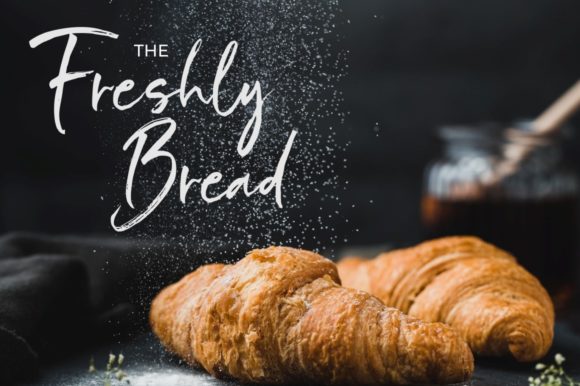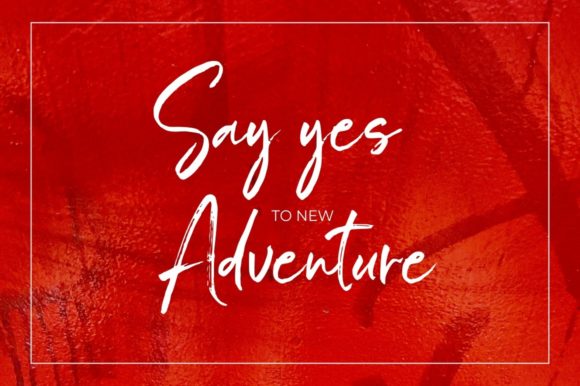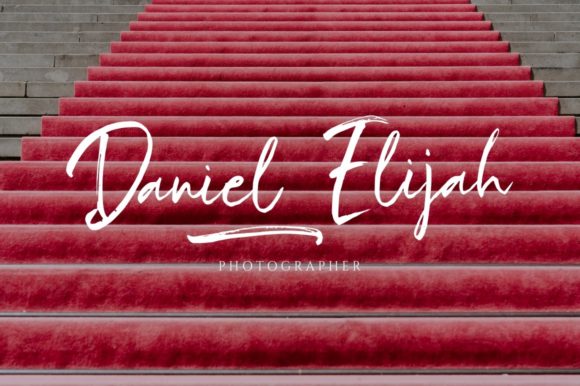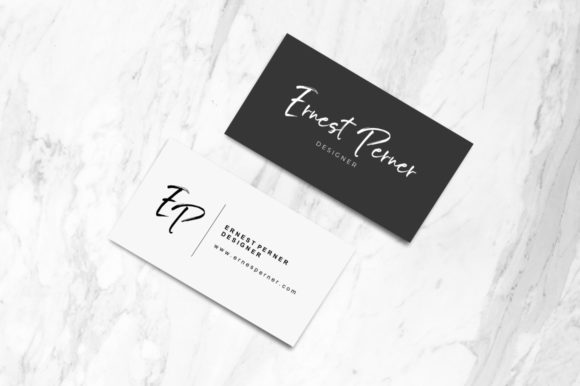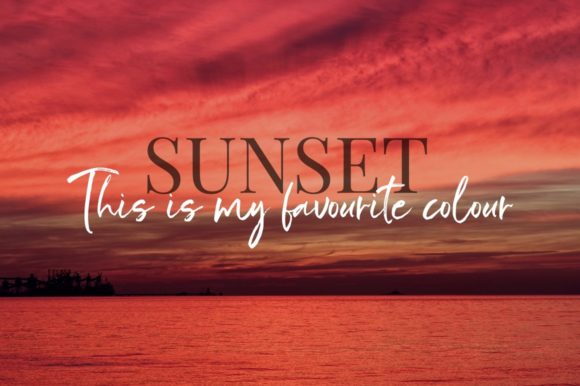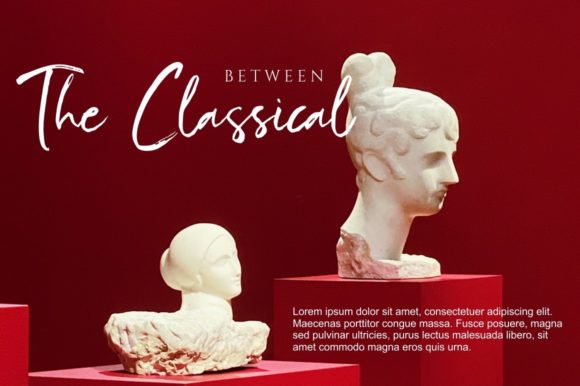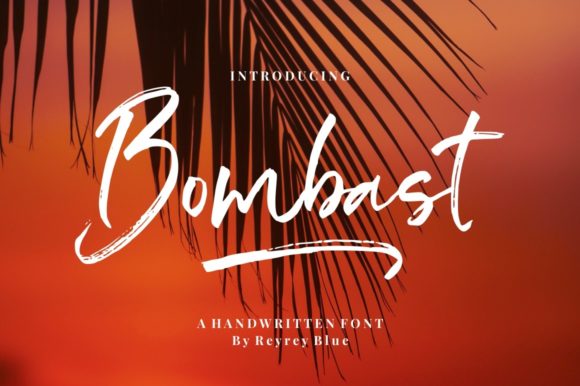
Bombast Font: Elevate Your Designs with a Flowing and Adaptable Brushed Script
In the world of typography, fonts play a crucial role in conveying the tone and aesthetic of a design. For designers and crafters looking to add a touch of trendiness and sophistication to their work, the Bombast Font is an excellent choice. This beautifully crafted brushed script font is designed to bring a fresh and modern look to various design projects.
What is Bombast Font?
Bombast Font is a flowing and adaptable brushed script font that exudes trendiness. Its unique and elegant design makes it perfect for a wide range of applications, from branding and advertising to packaging and digital media. The font’s flowing strokes and carefully crafted letterforms create a sense of movement and fluidity, adding a dynamic touch to any design.
Key Features of Bombast Font
- Flowing and Adaptable: Bombast Font is designed to be versatile and adaptable, making it suitable for various design projects and applications.
- Brushed Script Style: The font features a beautiful brushed script style that adds a touch of elegance and sophistication to any design.
- Trendiness: Bombast Font is particularly crafted to meet the demands of modern design, making it perfect for designers looking to create trendy and stylish work.
- Beautiful and Refreshing: The font’s unique design and flowing strokes create a beautiful and refreshing look that is sure to capture the attention of audiences.
Who Can Benefit from Bombast Font?
Bombast Font is an excellent choice for a wide range of designers and crafters, including:
- Graphic Designers: Graphic designers can use Bombast Font to create stunning branding and advertising materials, such as logos, brochures, and posters.
- Digital Designers: Digital designers can use the font to create engaging and modern digital media, such as website headers, social media graphics, and mobile app interfaces.
- Crafters: Crafters can use Bombast Font to add a personal touch to their handmade projects, such as handmade cards, gift tags, and iron-on designs.
- Marketing and Advertising Professionals: Marketing and advertising professionals can use the font to create eye-catching and effective marketing materials, such as billboards, flyers, and email campaigns.
Tips for Using Bombast Font Effectively
To get the most out of Bombast Font, here are some tips to keep in mind:
- Pair with Simple Fonts: Pair Bombast Font with simple and clean fonts to create a striking contrast and add visual interest to your design.
- Use for Headings and Titles: Use Bombast Font for headings and titles to create a bold and eye-catching look that grabs the attention of audiences.
- Experiment with Colors: Experiment with different colors and gradients to add depth and dimension to your design and make Bombast Font stand out.
- Keep it Simple: Keep your design simple and uncluttered to allow Bombast Font to shine and take center stage.
| Font Name | Bombast Font |
| Author | Reyrey Blue |
In conclusion, Bombast Font is a beautiful and versatile brushed script font that is perfect for designers and crafters looking to add a touch of trendiness and sophistication to their work. With its flowing strokes, adaptable design, and elegant letterforms, Bombast Font is sure to elevate your designs and make them stand out from the crowd.